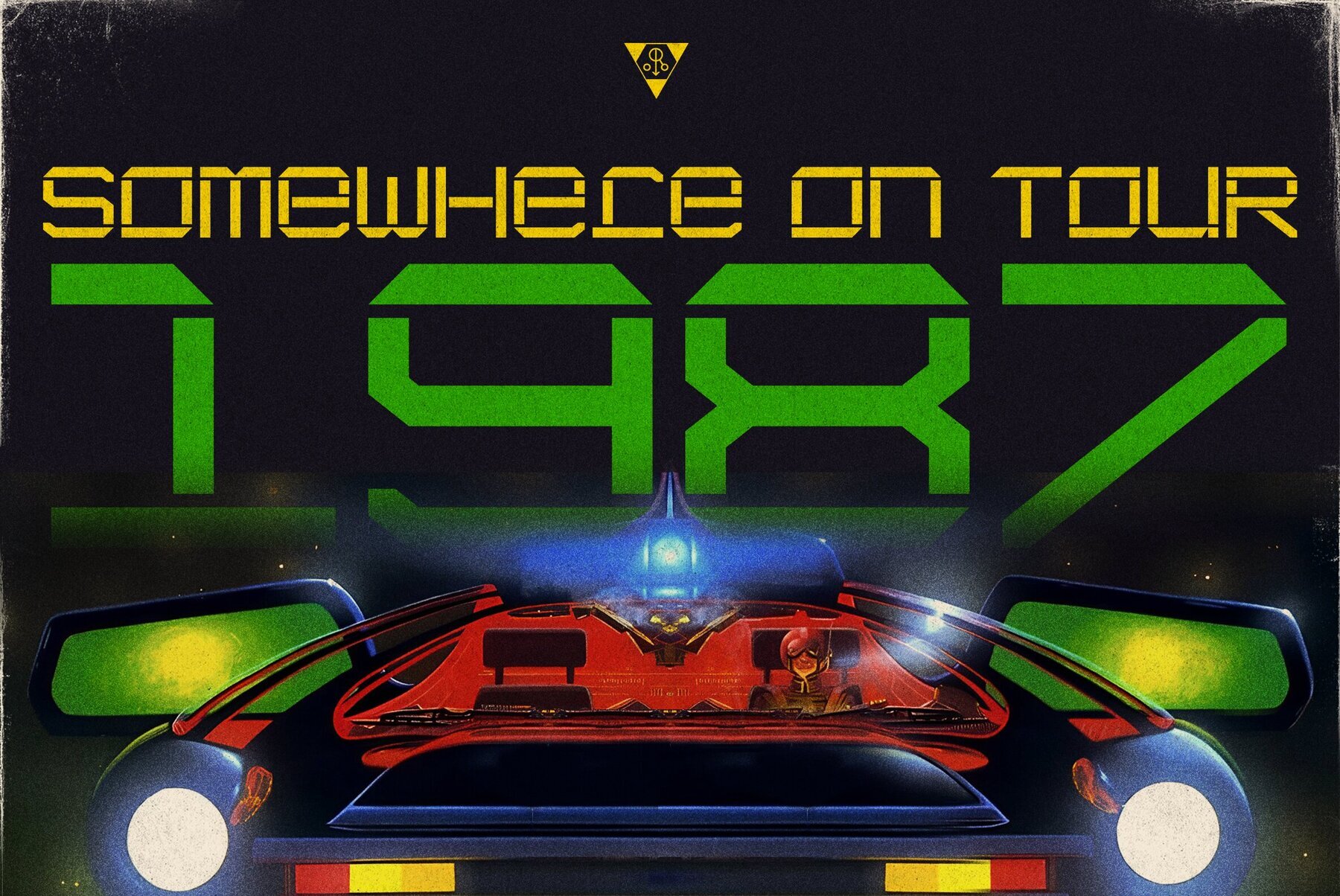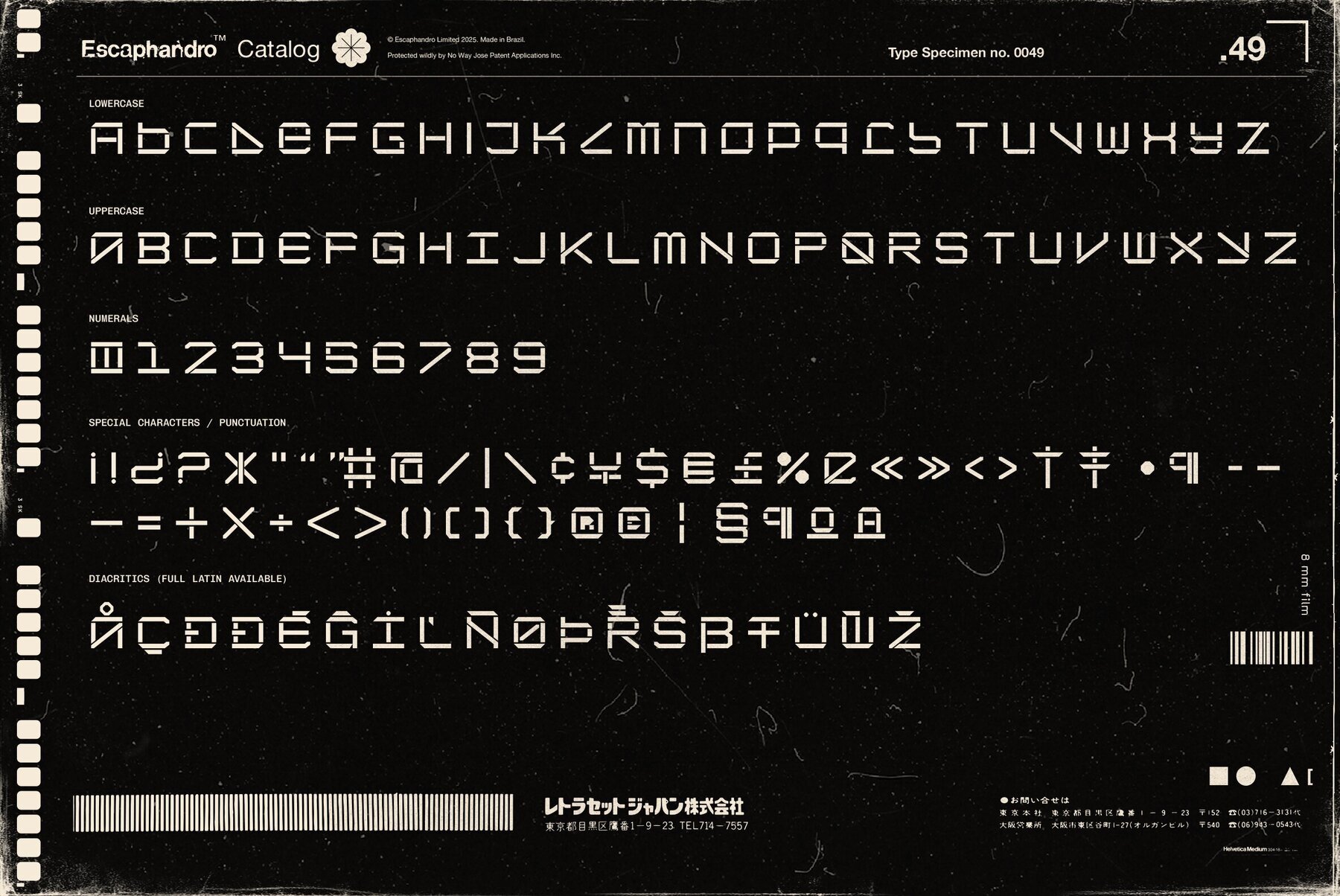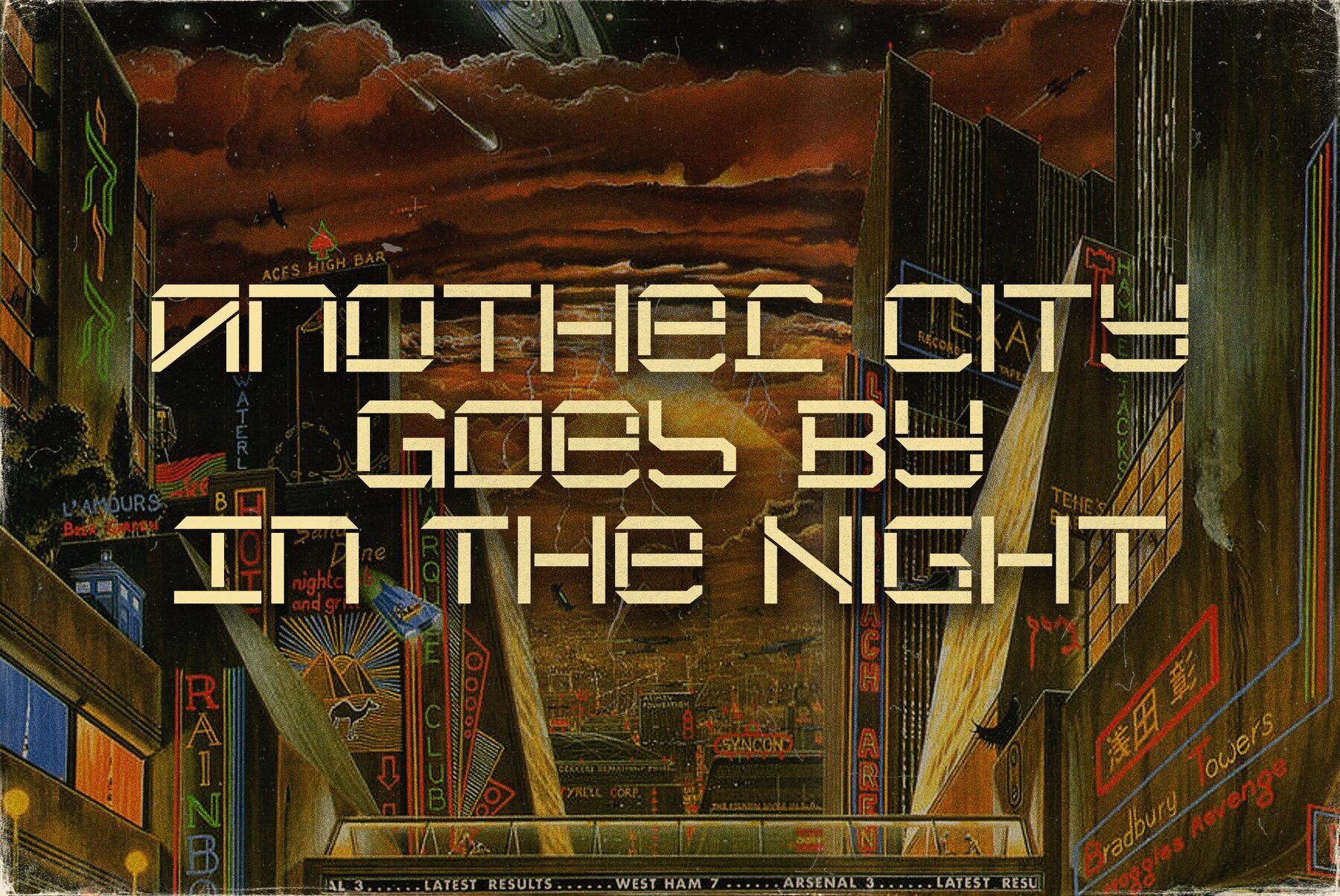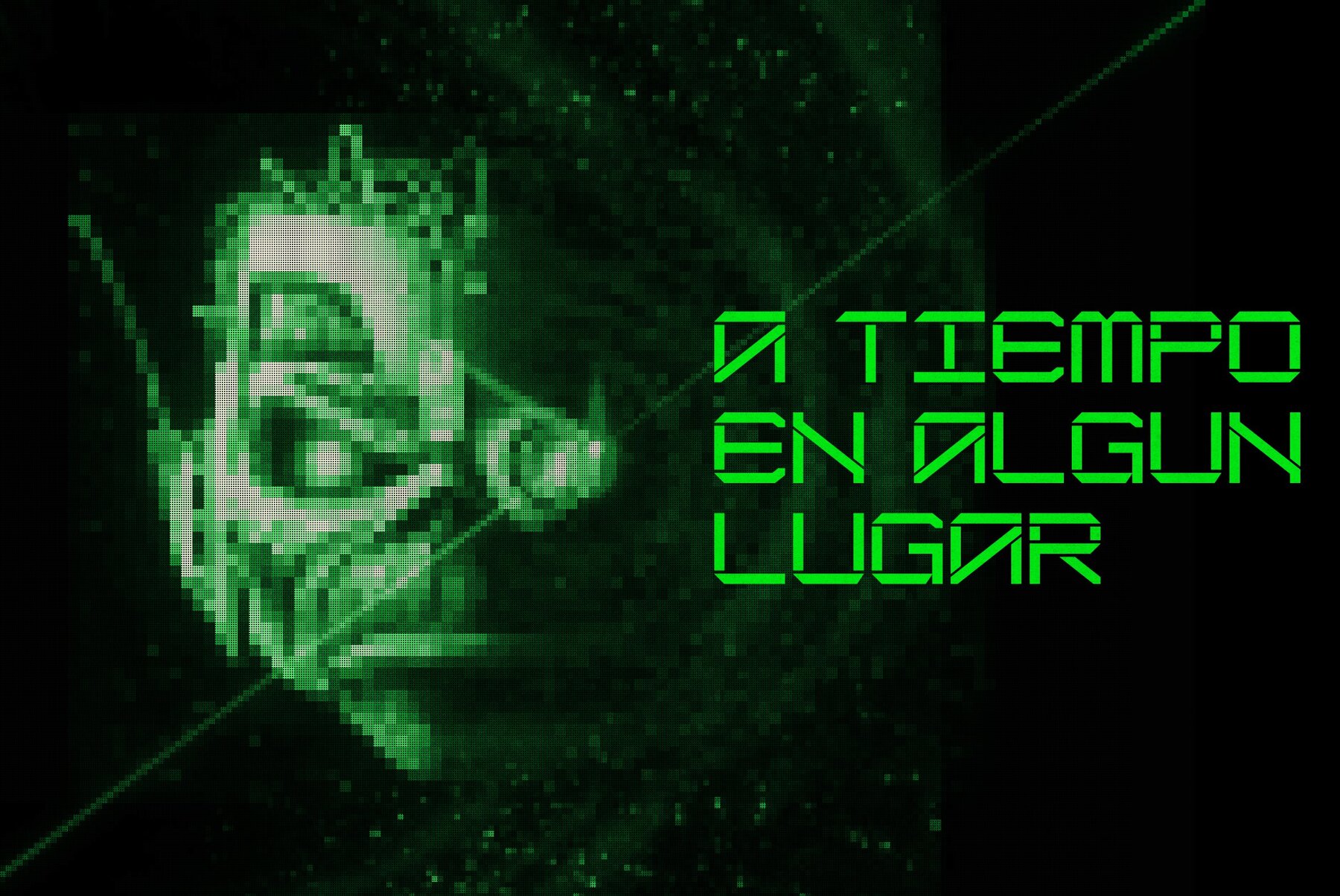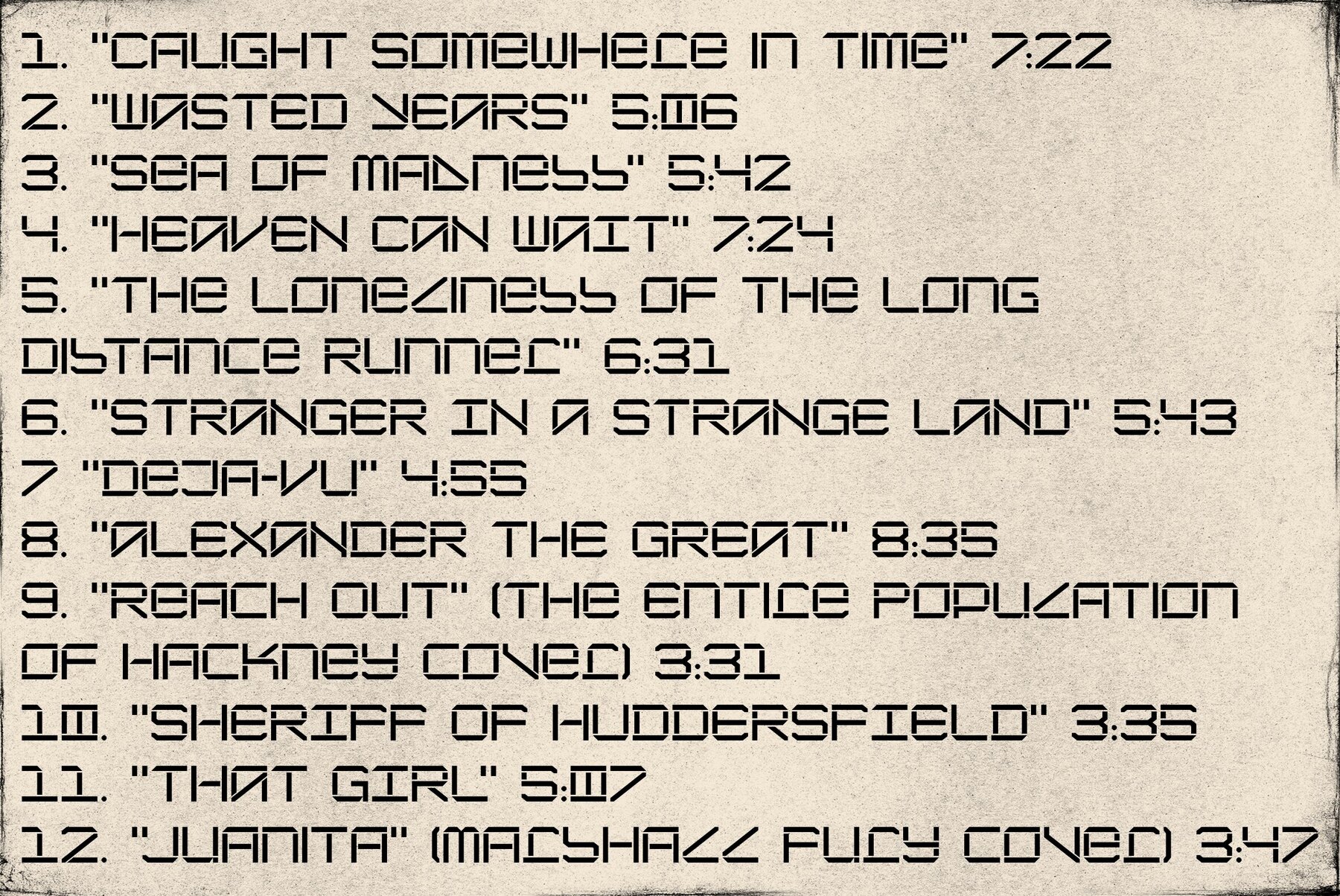
Wasted Years
Wasted Years captures the essence of retro-futurism with its distinctively metallic stencil design. Inspired by the elusive Argentine cover of the 1986 Iron Maiden hit, this typeface resurrects a nearly forgotten aesthetic. Brought to life by meticulously recreating each character from limited references, Wasted Years transforms into a complete digital font.Wasted Years Typeface